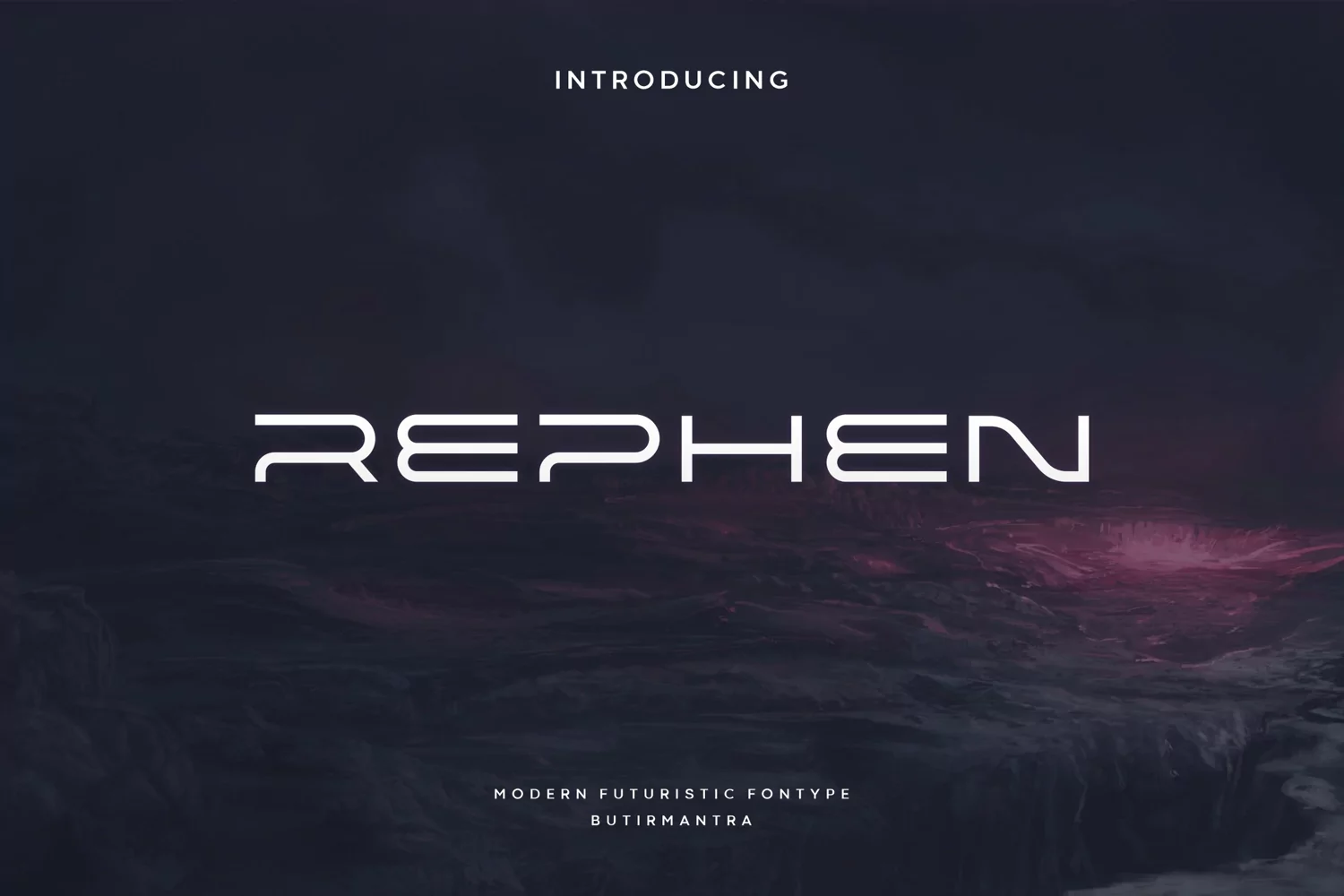
Rephen
Rephen is a cool and futuristic display font. This font would be ideal for writing web designs, business cards, or pretty much anything else that requires a unique touch.